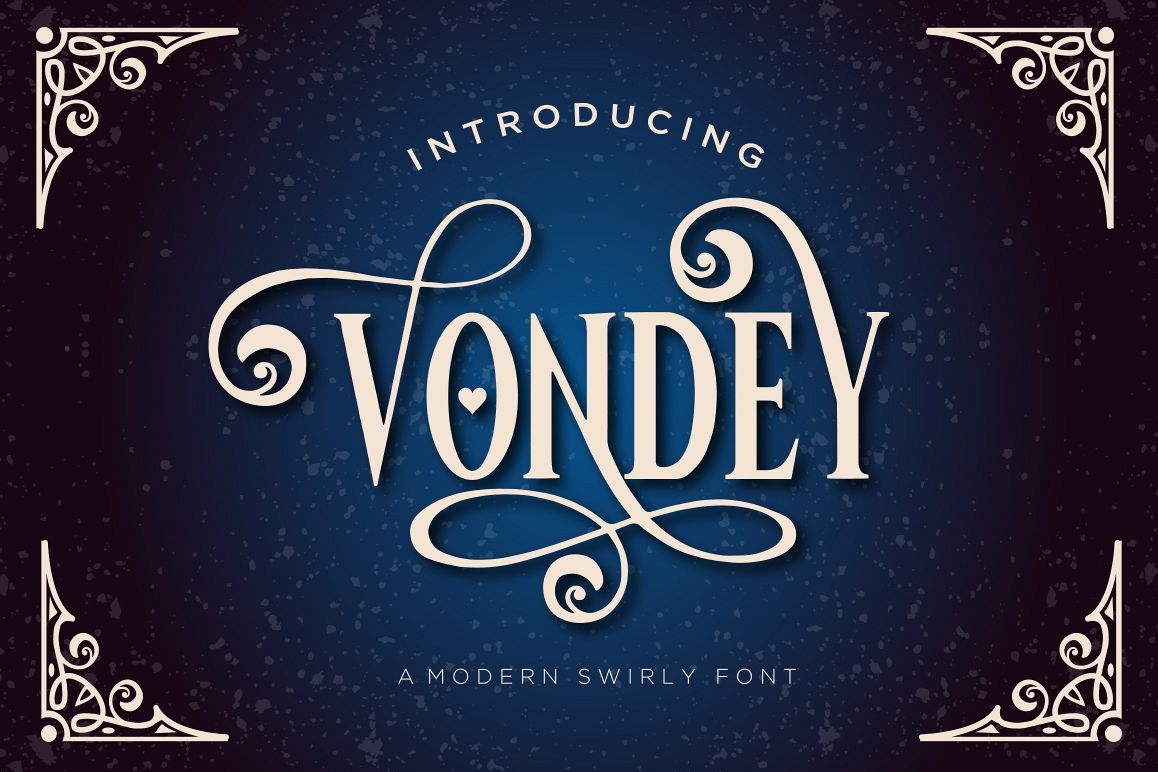
Vondey is a display font with more than 220 alternates and a Bonus Ornament font with lots of swirls and decorations, perfect for the Holidays. Each letter has between 3 and 12 alternates, except for lowercase a, c, e, and r. INCLUDED: